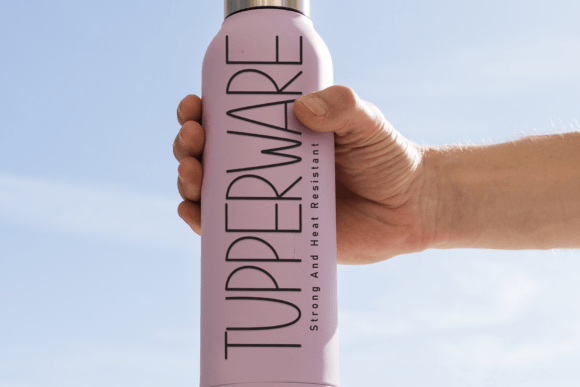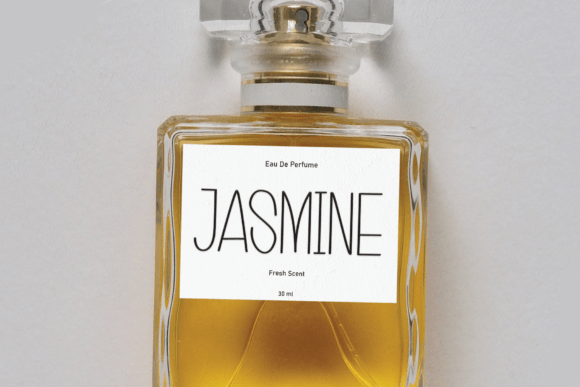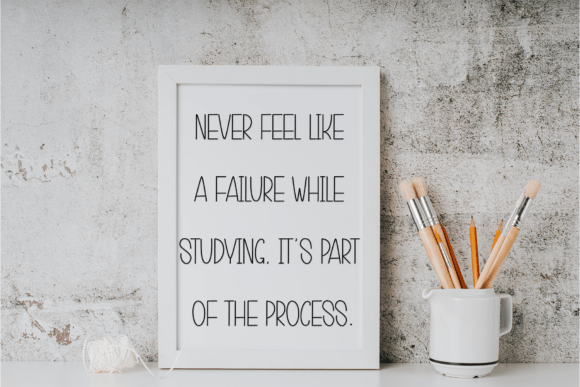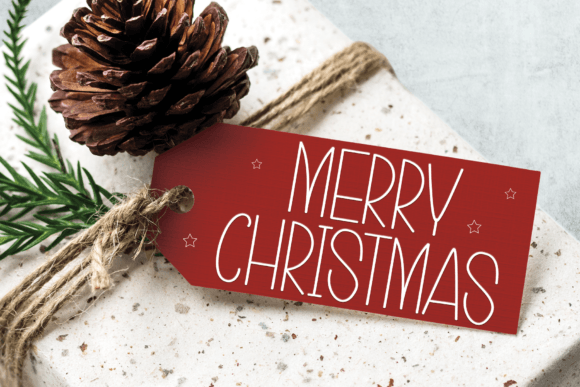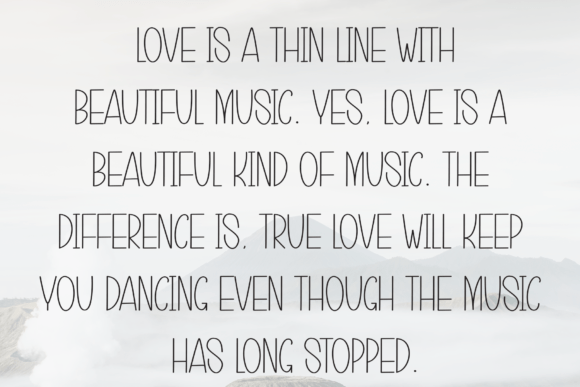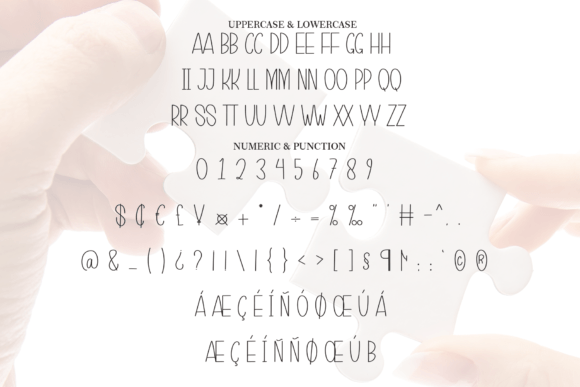
Introduction to Matching Font
Matching is a versatile, playful, display font.
It is perfect for a wide spectrum of applications such as greeting cards, headlines, and many more Add it confidently to your projects, and you will love the results.
Key Features of Matching Font
Why Choose Matching Font?
Matching Font offers exceptional quality and versatility, making it a valuable addition to your design toolkit. Whether you’re creating for personal projects or commercial use, Matching Font delivers professional results.